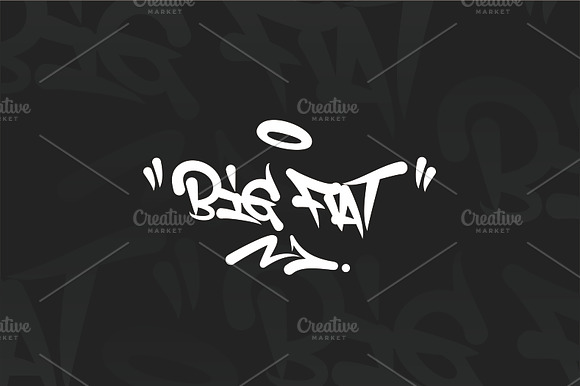
BIG FAT CAPS FONT
BIG FAT CAPS font by "reas" premium quality
Why BIG FAT CAPS FONT is worth a look
BIG FAT CAPS FONT by barokah font fits naturally into Branding, posters, packaging, typography.